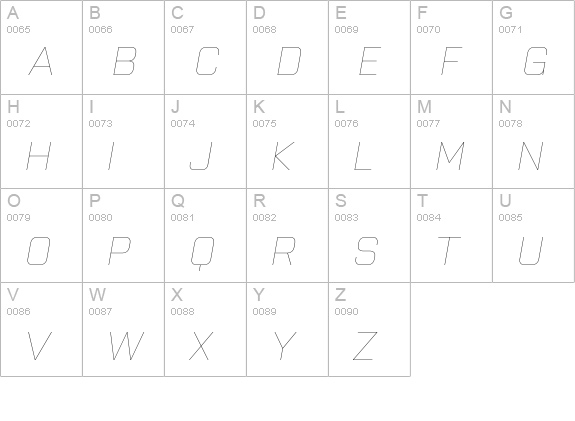
Purista Thin Italic Font Details
Purista Thin Italic is a delicate, low-contrast, italic variant in the Purista typeface family \xE2\x80\x94 well suited to fashion editorial, minimal branding, and high-contrast display.
Purista Thin Italic font exudes elegance and sophistication with its sleek and modern design. The delicate slant of the italic style adds a touch of refinement to any project, making it perfect for conveying a sense of sophistication and style. Its clean lines and slender letterforms create a sense of lightness and grace, making it ideal for use in fashion magazines, luxury branding, and elegant invitations. What sets Purista Thin Italic font apart is not only its aesthetic appeal but also its accessibility - it is available for free download at FontsMarket.com. This means that you can easily incorporate this stylish font into your designs without any cost, adding a touch of luxury and elegance without breaking the bank. Embrace the beauty of Purista Thin Italic font and elevate your designs with its timeless charm and sophistication.